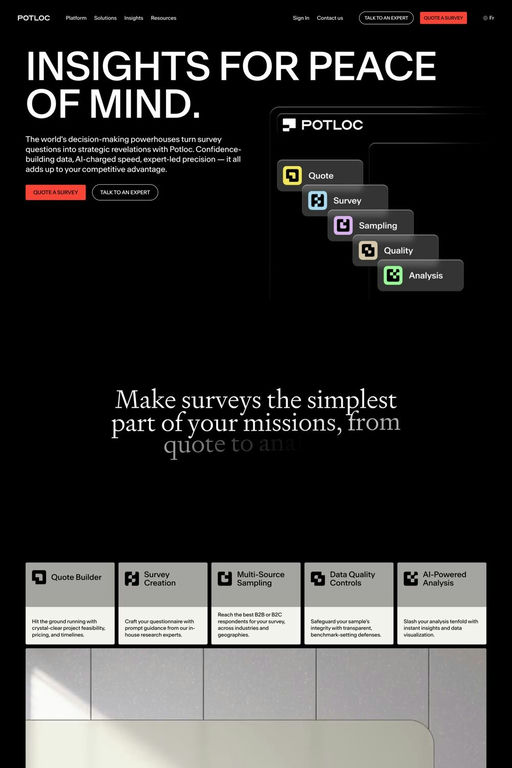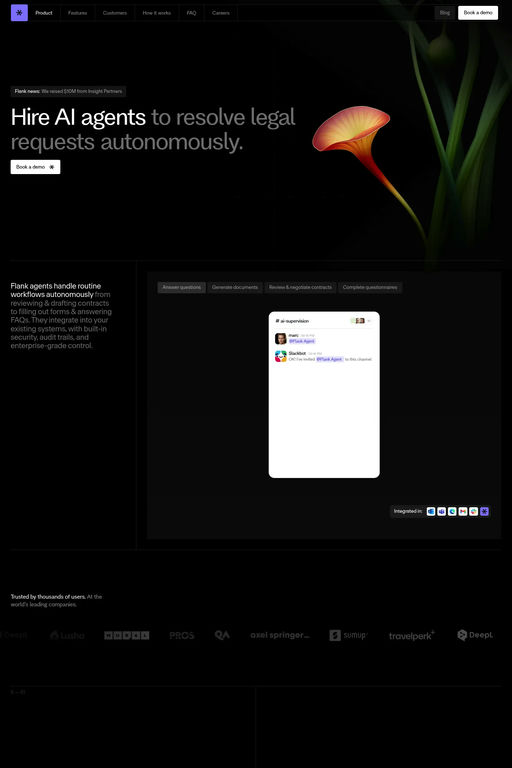
Antarctica is a sans-serif typeface from Newglyph.
Antarctica Typeface: a visionary font inspired by the uncharted beauty of the Earth’s southernmost continent. Bearing the name of the elusive Antarctica, hidden until 1820, this font embodies the simplicity, minimalism, and purity of this untouched region. Antarctica Typeface takes a bold leap into the future with its emphasis on Variable fonts, allowing dynamic adaptability and unmatched flexibility. Much like the ever-evolving landscape of the Arctic Circle, this font pioneers a futuristic approach to type design, breaking boundaries and pushing the limits of creativity.
A1 features 2 websites using Antarctica, including Flank and Potloc. They lean towards Dark, Lines, and Grid design styles, and they’re most often built with Webflow.